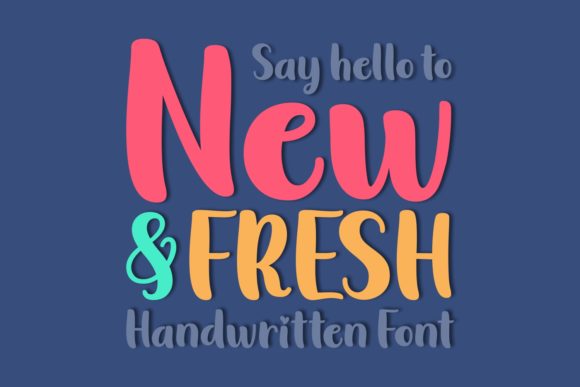
**New & Fresh Fonts: A Breathtaking Typographic Journey**
In the realm of design, where visual expression meets emotional resonance, fonts hold a profound power to shape perceptions, evoke sentiments, and leave a lasting impression. Introducing New & Fresh Fonts, a display font family meticulously crafted to be a vibrant and trendsetting companion for your creative endeavors. Created by the talented Jasm from 7NTypes, this font collection is more than just a set of characters; it's an invitation to embark on a typographic journey that's both aesthetically captivating and conceptually invigorating.
**A Typographic Masterpiece for Every Creation**
Whether you're a seasoned designer, an aspiring artist, or simply someone with a passion for creating visually stunning content, New & Fresh Fonts is the ultimate tool for transforming your ideas into captivating realities. Its bold and distinctive letterforms exude an air of confidence and modernity, making them ideal for a wide range of projects, from eye-catching headlines and logos to engaging social media posts and website designs.
**Endless Possibilities Await**
With its inherent versatility, New & Fresh Fonts seamlessly adapts to a multitude of design styles and themes. From bold and playful to elegant and sophisticated, this font family possesses the uncanny ability to elevate any project it graces. Whether you're crafting a captivating book cover, designing a dynamic marketing campaign, or simply adding a touch of personality to your personal projects, New & Fresh Fonts is your trusted partner in typographic excellence.
**The Perfect Font for a Book**
For those seeking the ideal font to bring their literary creations to life, look no further than New & Fresh Fonts. Its carefully crafted letterforms possess an inherent readability that ensures your words flow effortlessly from page to page, captivating readers and immersing them in your narrative world. Whether you're writing a gripping novel, a thought-provoking essay, or an inspiring self-help guide, New & Fresh Fonts provides the perfect foundation for your storytelling journey.
**A Font That Speaks to the Heart**
Beyond its undeniable aesthetic appeal, New & Fresh Fonts possesses an intrinsic ability to connect with your audience on a deeper level. Its unique letterforms evoke emotions, convey messages, and create a sense of connection that transcends words alone. With New & Fresh Fonts, your designs will not only look stunning but also resonate with your audience, leaving a lasting impression that lingers long after the page is turned or the website is closed.
**Dive into the World of Typographic Brilliance**
Join countless creatives who have discovered the transformative power of New & Fresh Fonts. Let your imagination soar as you explore the endless possibilities this font family offers. From bold statements to subtle nuances, New & Fresh Fonts empowers you to create designs that captivate, inspire, and leave an indelible mark on the world.